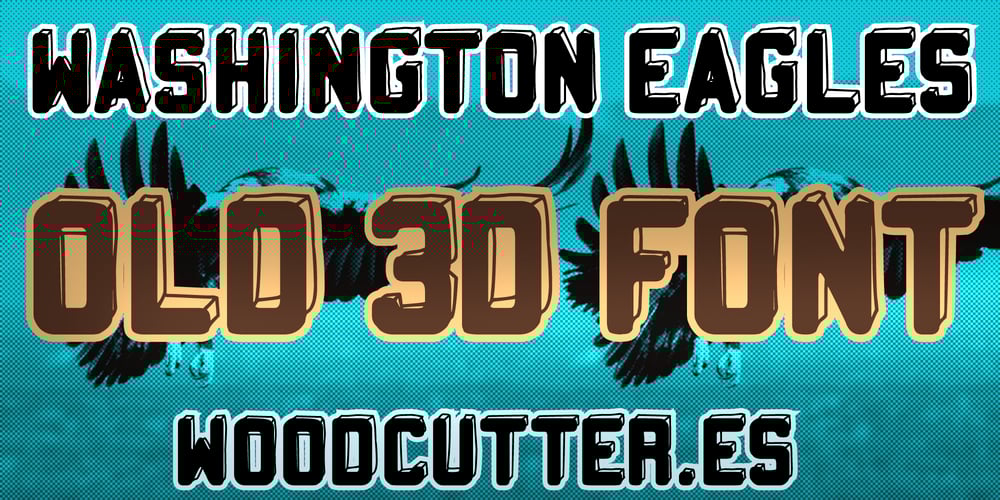
Washington Eagles
Washington Eagles font
Washington Eagles Font Family was designed by Jordi Manero and published by Woodcutter. Washington Eagles contains 1 styles and family package options. “Washington Eagles” is an old school university-style font featuring uppercase letters with a 3D shadow outline. The letters evoke the tradition and prestige of classic university insignias, with a robustness and elegance that capture the essence of the academic style. The three-dimensional shadow adds depth and character, making it stand out in any design. It is perfect for logos, sports event posters, and promotional material that requires a strong and classic appearance.